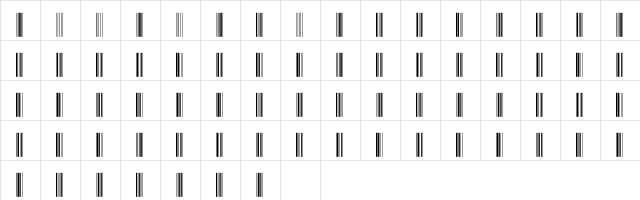
C39P60DlTt Normal Font Preview
C39P60DlTt Normal
C39P60DlTt Normal Font Details
Design Context for C39P60DlTt Typeface
C39P60DlTt takes a measured approach to typography — its balanced proportions and neutral character make it a reliable workhorse for both digital and print work.